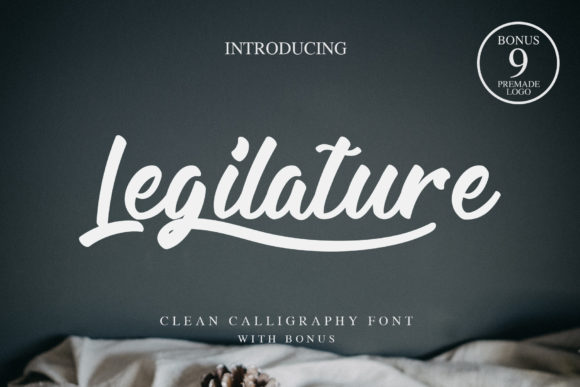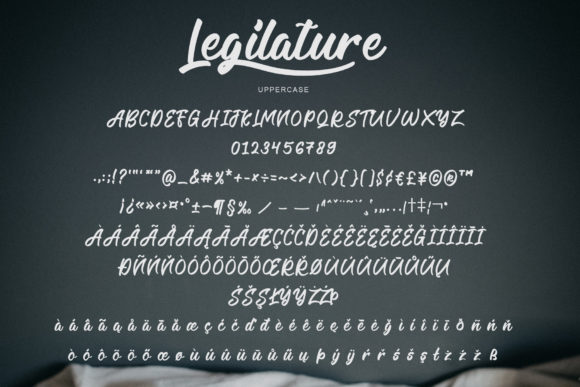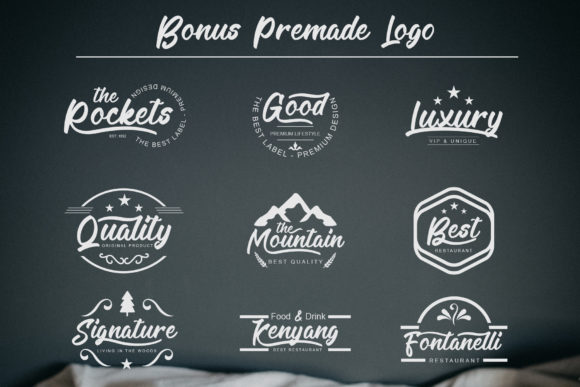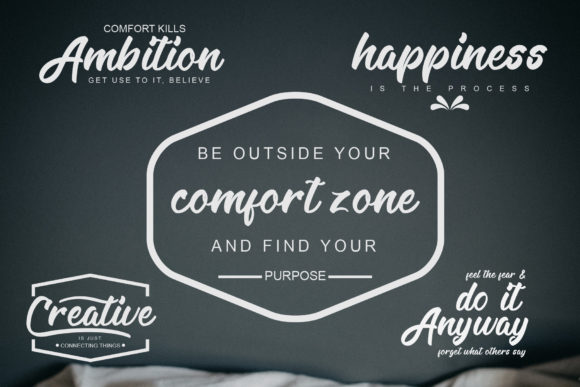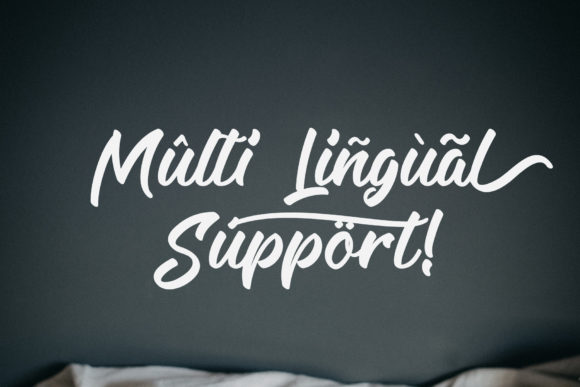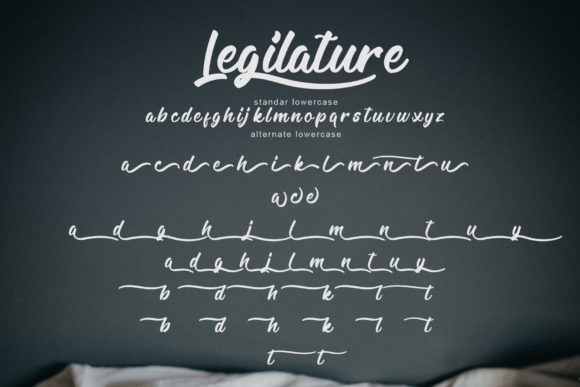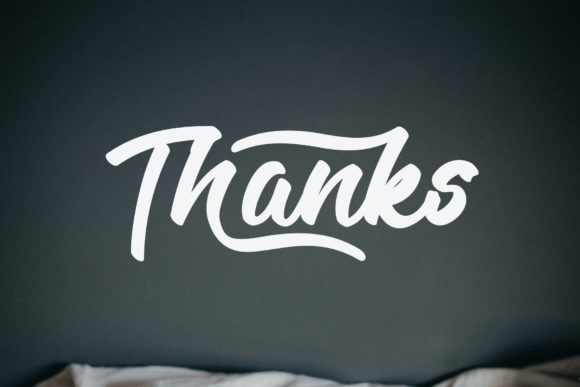
Legilature Font
About Legilature Font
The Legilature is an amazing calligraphy font. It has a simple, yet modern style and a perfect readability
Included as a bonus are 9 striking premade logos.